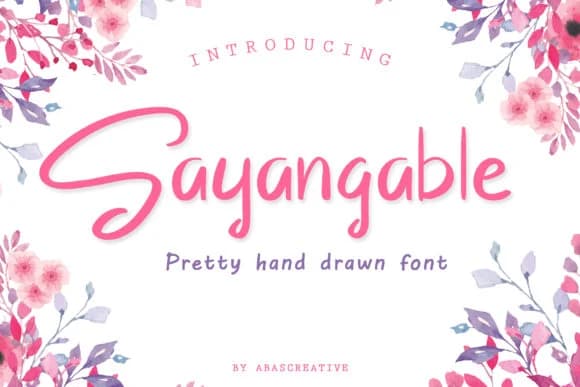
About Sayangable Font
There's something quietly magnetic about this typeface, drawing the eye with its natural rhythm and ease. Sayangable, designed by AbasCreative, is a handwritten script that bridges the gap between authentic hand lettering and contemporary design sophistication.
This font excels wherever personality and authenticity matter most. Wedding invitation suites gain character and warmth that mass-produced fonts simply can't match. Boutique product labels, from artisanal skincare to craft beverage bottles, read as intentional and curated rather than generic. Social media graphics and branding headers benefit from the organic flow that keeps followers engaged through the feed. You'll also see it thrive in custom greeting card designs, small business logos, and event signage for venues that need to feel intimate and intentional.
What makes Sayangable work across all these applications is its balanced approach. The stroke weight varies just enough to maintain handwritten character while staying legible at smaller sizes. No stiffness here, no awkward letterforms breaking the flow. Every character feels like it belongs in a conversation rather than a formal announcement. For a complete design system, pair Sayangable with a clean, geometric sans-serif for body text and callouts. The contrast between script and sans creates breathing room and hierarchy without sacrificing the warm personality you're building. Find Sayangable on Creative Fabrica and bring that handcrafted authenticity to your next project.
- Elegant, Flowing, Sayangable
Sayangable Font is a script font that shines as a display or heading face. Pair it with a clean sans-serif or serif font for body text β the contrast creates a clear hierarchy while the two styles stay balanced and easy to read.
Sayangable Font
by AbasCreative